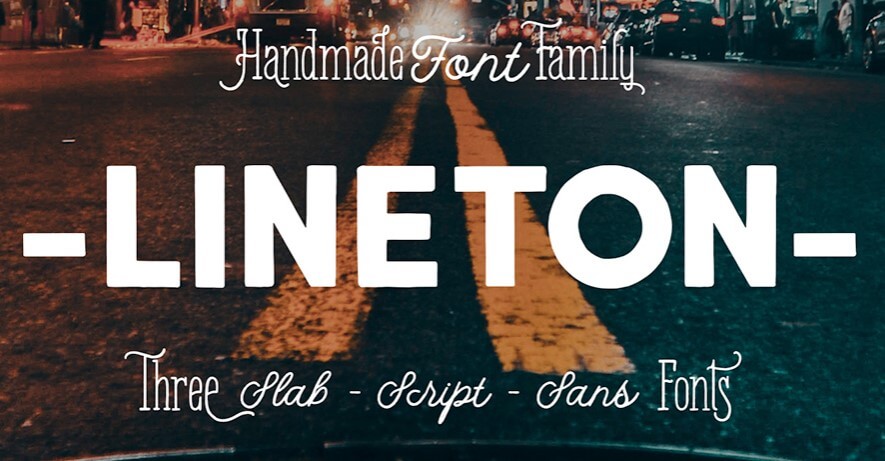
The Lineton font family is a stunning typeface that was both designed and made available for the first time by iTypeface.
This font will give you something brilliant. The element will provide you. With the handmade appearance, the mixture of fonts will provide you with the look as pro hand lettering. This free font is best to be used as a t-shirt layout, brand/logo, signature, headline, lettering fees, and many others.